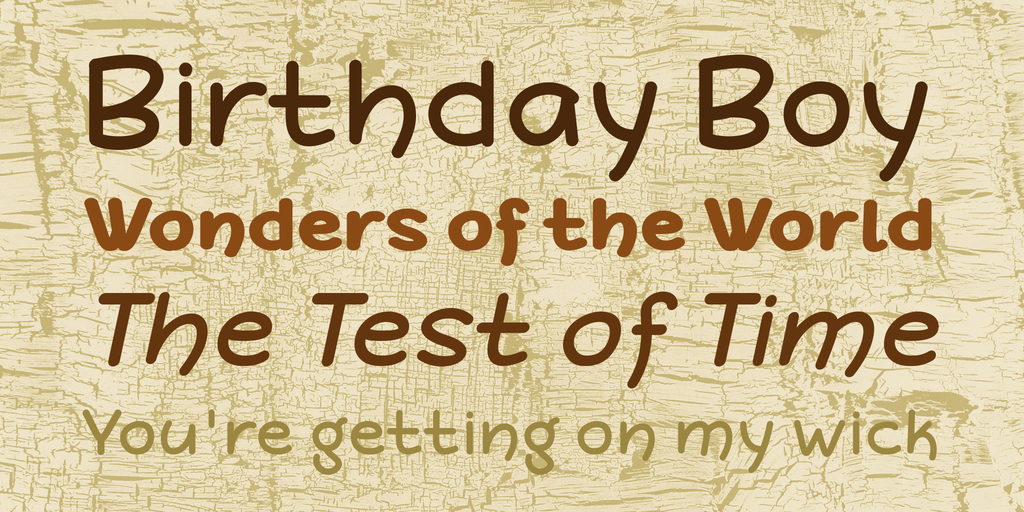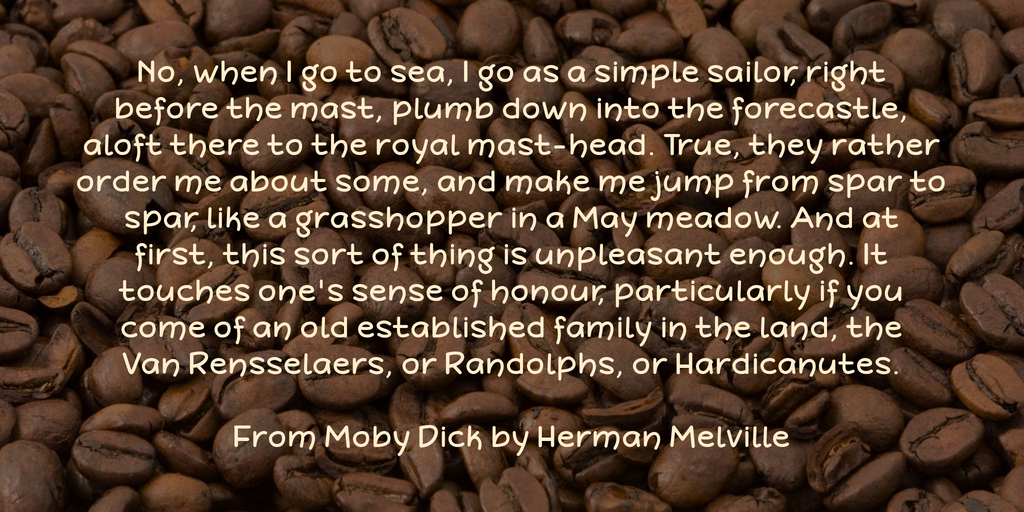
Discover the Creative World of Defonarts Font
Defonarts is a unique and innovative font created by the talented designer, Situjuh Nazara. As a crafty designer or enthusiastic crafter, you’re likely always on the lookout for fresh and exciting typography to elevate your creative projects. Look no further than Defonarts, a font that is sure to inspire and captivate your audience.
The Story Behind Defonarts
Situjuh Nazara, the mastermind behind Defonarts, is a passionate designer with a keen eye for detail and a deep understanding of the importance of typography in design. With a background in graphic design and a love for creative experimentation, Nazara set out to craft a font that would push the boundaries of traditional typography and offer a distinctive voice for designers and crafters.
The result is Defonarts, a font that seamlessly blends artistic flair with technical precision. Nazara’s dedication to quality and attention to detail are evident in every aspect of the font, from its elegant lines to its versatile applications.
Key Features of Defonarts Font
So, what makes Defonarts stand out from the crowd? Here are some of its key features:
- Unique Design: Defonarts boasts a one-of-a-kind design that is both visually striking and highly legible. Its distinctive characters and flowing lines make it perfect for a wide range of creative projects.
- Versatility: Whether you’re working on a logo, a poster, a website, or a craft project, Defonarts is incredibly versatile and can adapt to any style or theme.
- Ease of Use: Despite its complex and artistic design, Defonarts is surprisingly easy to use, even for those who are new to working with custom fonts.
- High-Quality: As a professionally designed font, Defonarts meets the highest standards of quality, ensuring that your projects look polished and professional.
Applications of Defonarts Font
The possibilities for using Defonarts are endless. Here are a few ideas to get you started:
- Branding and Logo Design: Create a memorable brand identity with Defonarts’ unique and eye-catching letters.
- Graphic Design: Add a touch of elegance and sophistication to your posters, flyers, and brochures.
- Web Design: Enhance your website’s typography and make it stand out with Defonarts’ clean and modern design.
- Crafting and DIY Projects: Add a personal touch to your handmade crafts, such as journals, cards, and scrapbooks.
Defonarts, created by the talented Situjuh Nazara, is more than just a font – it’s a creative tool that can elevate your designs and projects to new heights. With its unique design, versatility, and high-quality craftsmanship, Defonarts is sure to become a favorite among designers and crafters alike. So why wait? Explore the world of Defonarts today and discover a new way to express your creativity.
About Situjuh Nazara
Situjuh Nazara is a passionate and skilled designer with a love for typography and creative experimentation. With a background in graphic design, Nazara is committed to pushing the boundaries of design and delivering high-quality, innovative solutions for designers and crafters around the world.